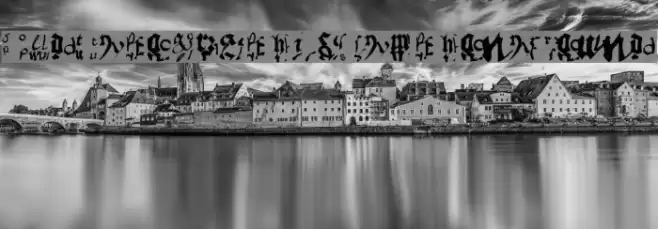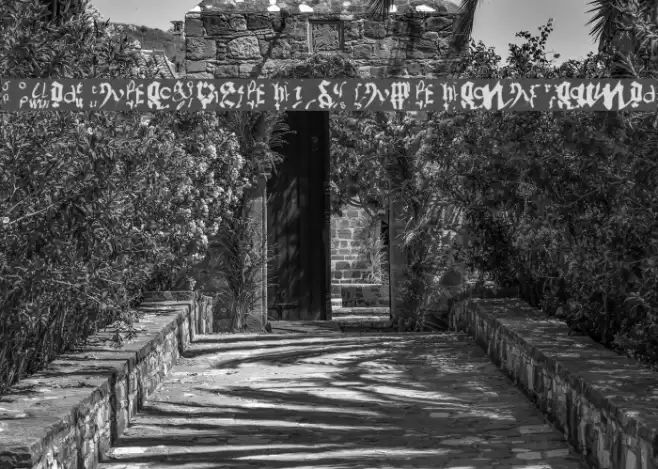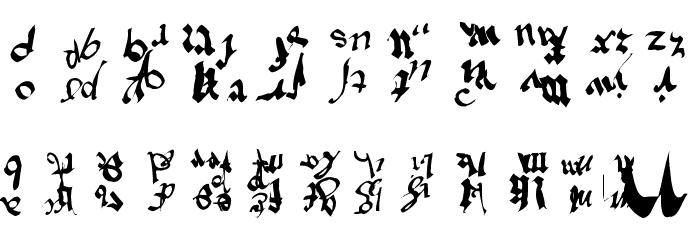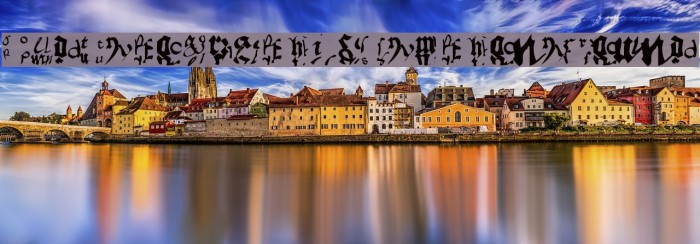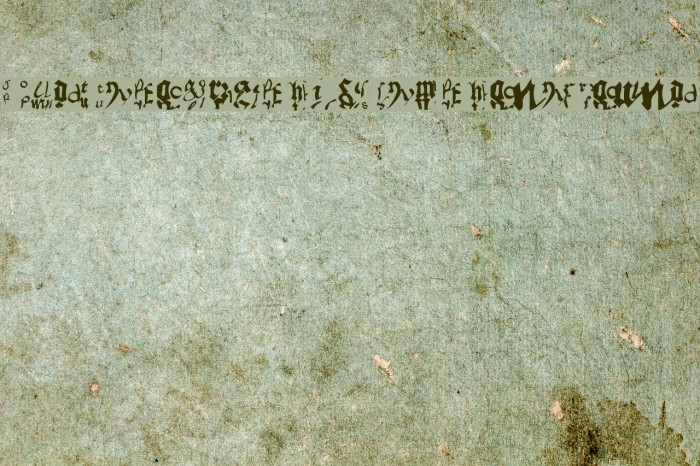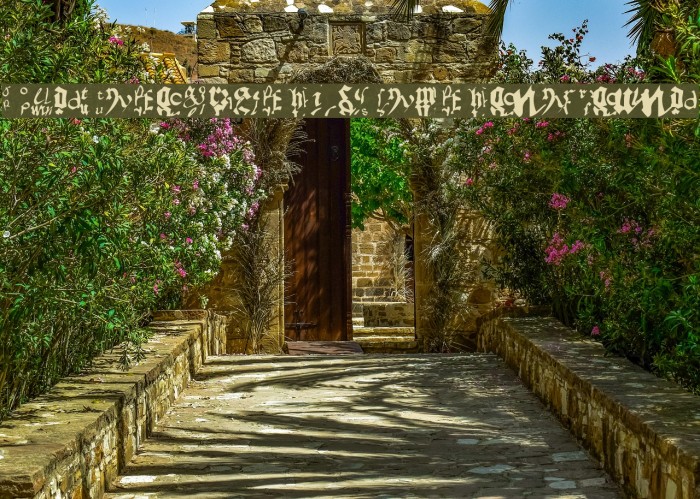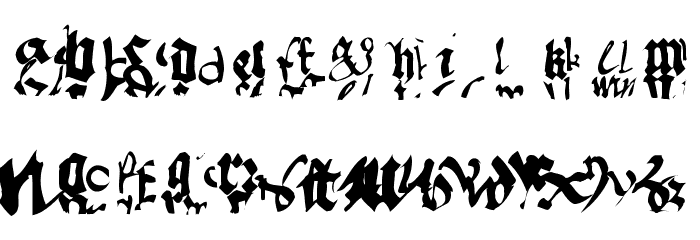
OldTypographicSymphony Round Font
OldTypographicSymphony Round Description
This font exhibits a highly decorative and intricate style, reminiscent of traditional blackletter or Gothic script. The characters are ornate, with elaborate flourishes and sharp, angular strokes that create a sense of historical elegance. The uppercase letters are particularly bold and commanding, while the lowercase letters maintain a consistent level of detail and complexity. The numerals and special characters follow the same ornate design, ensuring a cohesive appearance across all glyphs. This font is ideal for projects that require a touch of medieval or vintage charm, such as invitations, certificates, or themed branding.
An ornate and intricate blackletter-style font with historical elegance from Uncategorized fonts.
- Proposed Projects: Ideal for medieval-themed designs, invitations, certificates, and vintage branding.
- Character Spacing: Tight
- Overall Style: Vintage